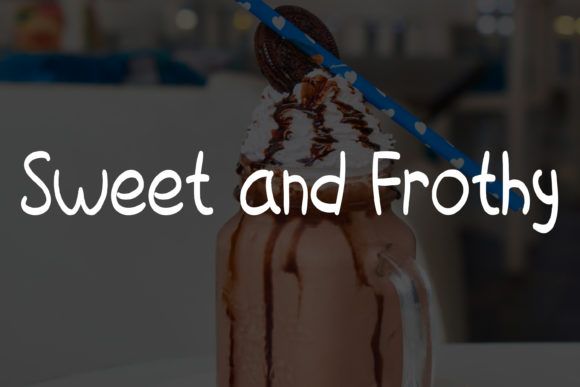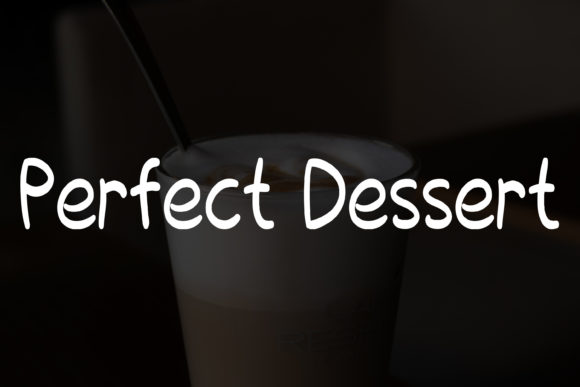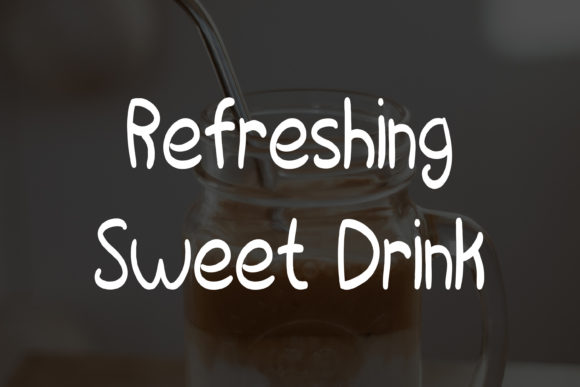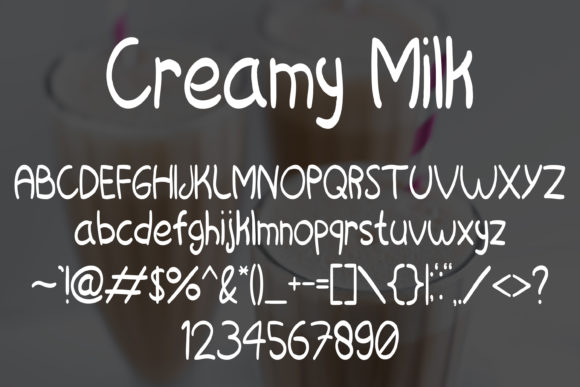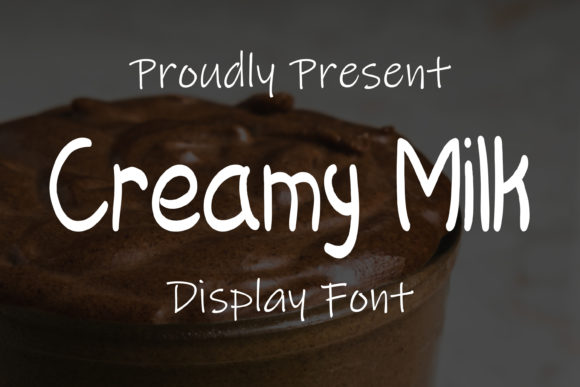
Creamy Milk Font: The Perfect Addition to Your Design Arsenal
Are you tired of using the same old fonts in your designs? Look no further than the Creamy Milk font, a cute, friendly, and adaptable handwritten font that’s sure to add a personal and realistic feel to your creations. In this article, we’ll dive into the world of Creamy Milk and explore its features, benefits, and uses.
What is Creamy Milk Font?
Creamy Milk is a beautiful, handcrafted font that’s designed to bring a touch of warmth and personality to your designs. Its authentic look and feel make it perfect for a wide range of projects, from branding and packaging to invitations and crafts. Whether you’re a designer, crafter, or DIY enthusiast, Creamy Milk is a versatile font that’s sure to become a favorite in your arsenal.
Features of Creamy Milk Font
- Cute and Friendly: Creamy Milk has a playful, approachable vibe that’s perfect for designs that need a personal touch.
- Adaptable: This font is highly versatile and can be used in a variety of contexts, from formal to informal.
- Handwritten: Creamy Milk has a genuine, handwritten feel that’s sure to add a touch of realism to your designs.
- Easy to Read: The font is clear and legible, making it perfect for body text and headings.
Benefits of Using Creamy Milk Font
So why choose Creamy Milk over other fonts? Here are just a few benefits of using this amazing font:
- Unique Look: Creamy Milk has a distinctive look that’s sure to set your designs apart from the crowd.
- Time-Saving: With Creamy Milk, you can create professional-looking designs in no time – no need to spend hours searching for the perfect font.
Uses of Creamy Milk Font
Creamy Milk is an incredibly versatile font that can be used in a wide range of projects, including:
- Branding and Packaging: Use Creamy Milk to create eye-catching logos, labels, and packaging that stands out on store shelves.
- Invitations and Stationery: Add a personal touch to your invitations, greeting cards, and stationery with this beautiful font.
- Crafts and DIY Projects: Creamy Milk is perfect for crafters and DIY enthusiasts who want to add a professional touch to their projects.
- Digital Designs: Use Creamy Milk in your digital designs, such as social media graphics, blog posts, and email newsletters.
Here are a few tips for getting the most out of Creamy Milk:
- Experiment with Different Sizes: Creamy Milk looks great in a variety of sizes, from large headings to smaller body text.
- Pair it with Other Fonts: Try pairing Creamy Milk with other fonts to create a unique and eye-catching design.
- Use it in Combination with Images: Creamy Milk looks great when used in combination with images – try using it to add text to your photos or illustrations.
In conclusion, Creamy Milk is a beautiful, versatile font that’s perfect for designers, crafters, and DIY enthusiasts. Its authentic look and feel make it a great choice for a wide range of projects, from branding and packaging to invitations and crafts. With its ease of use, cross-platform compatibility, and support for multiple languages, Creamy Milk is a font that’s sure to become a favorite in your design arsenal.